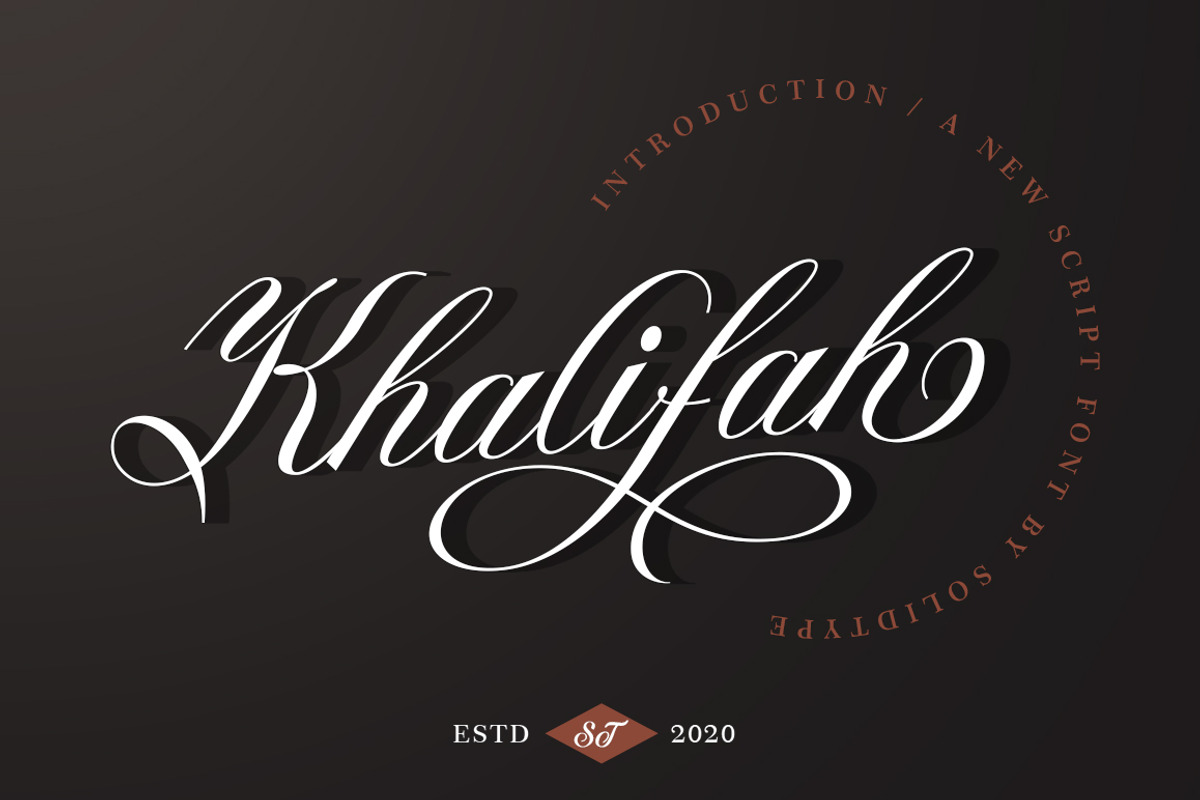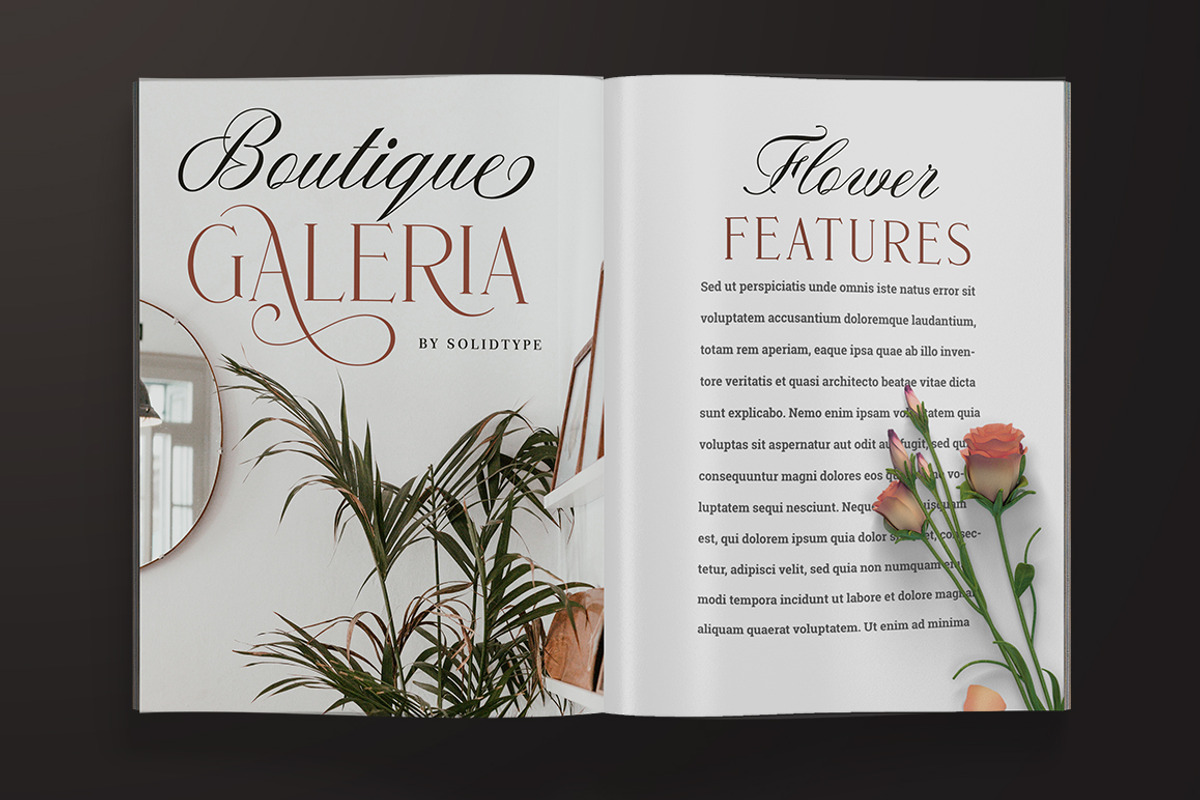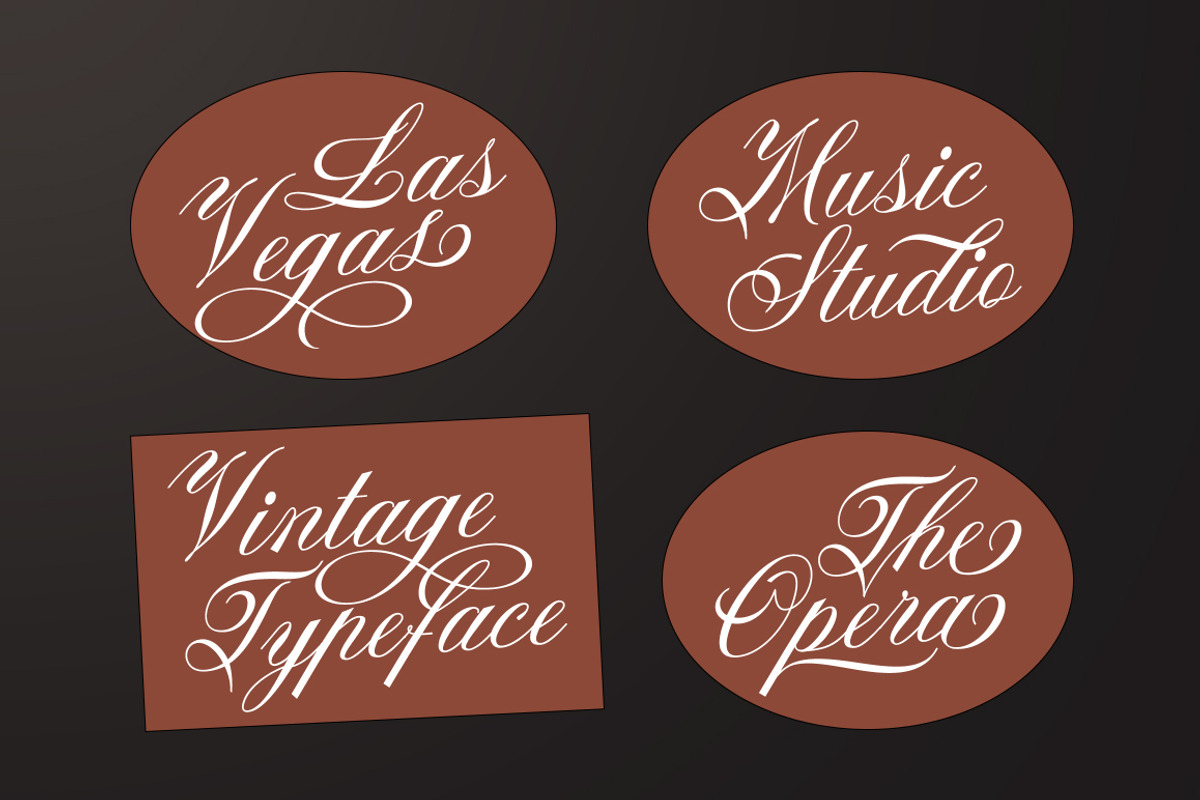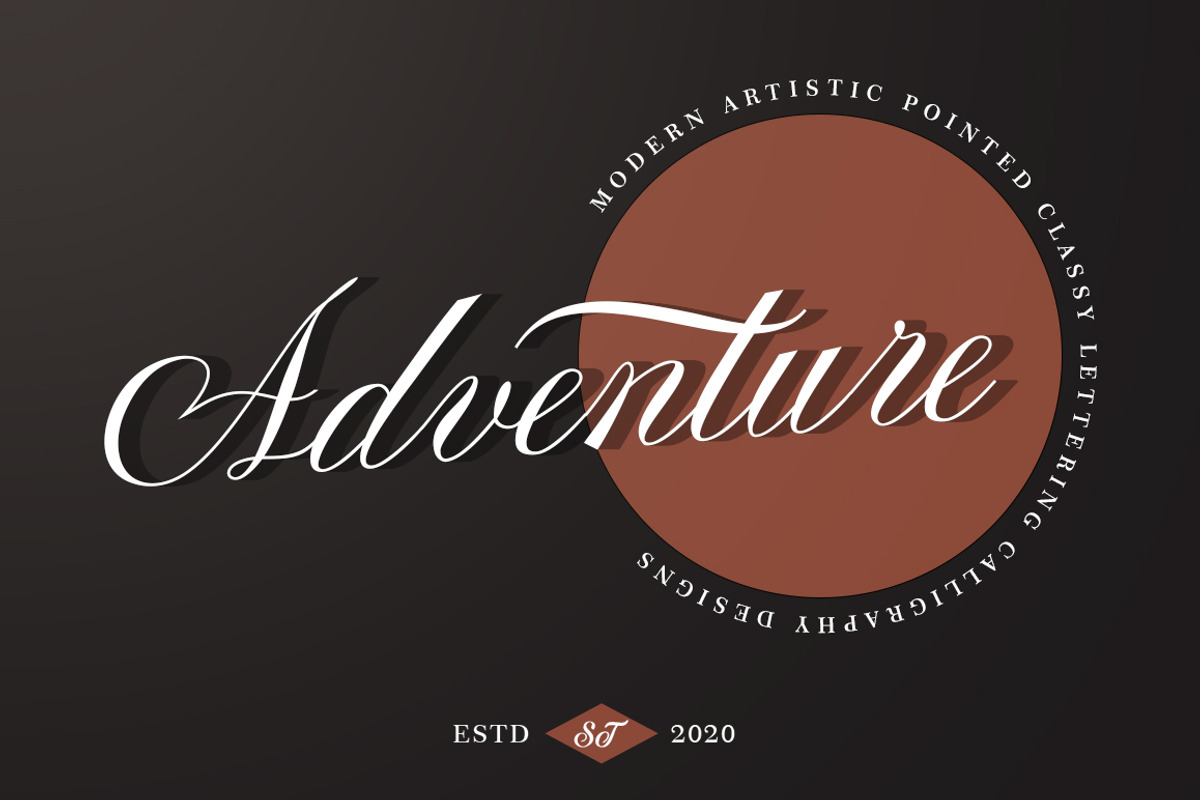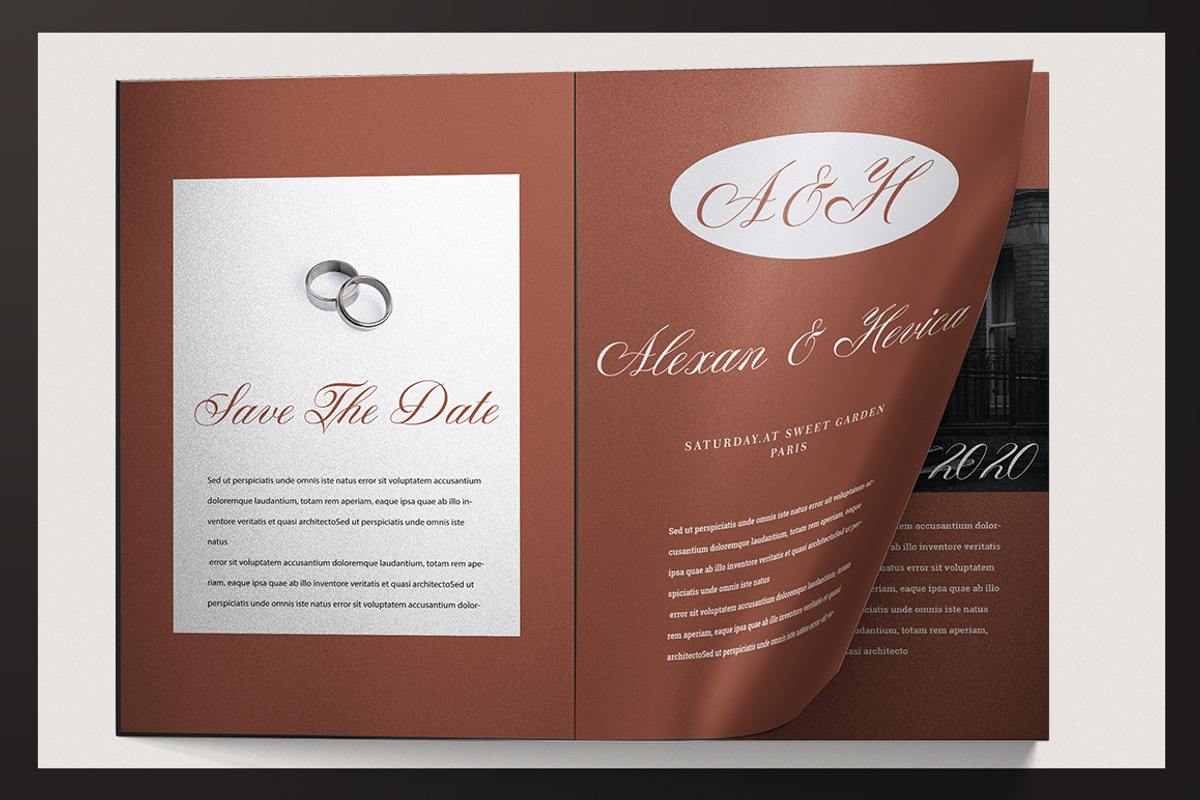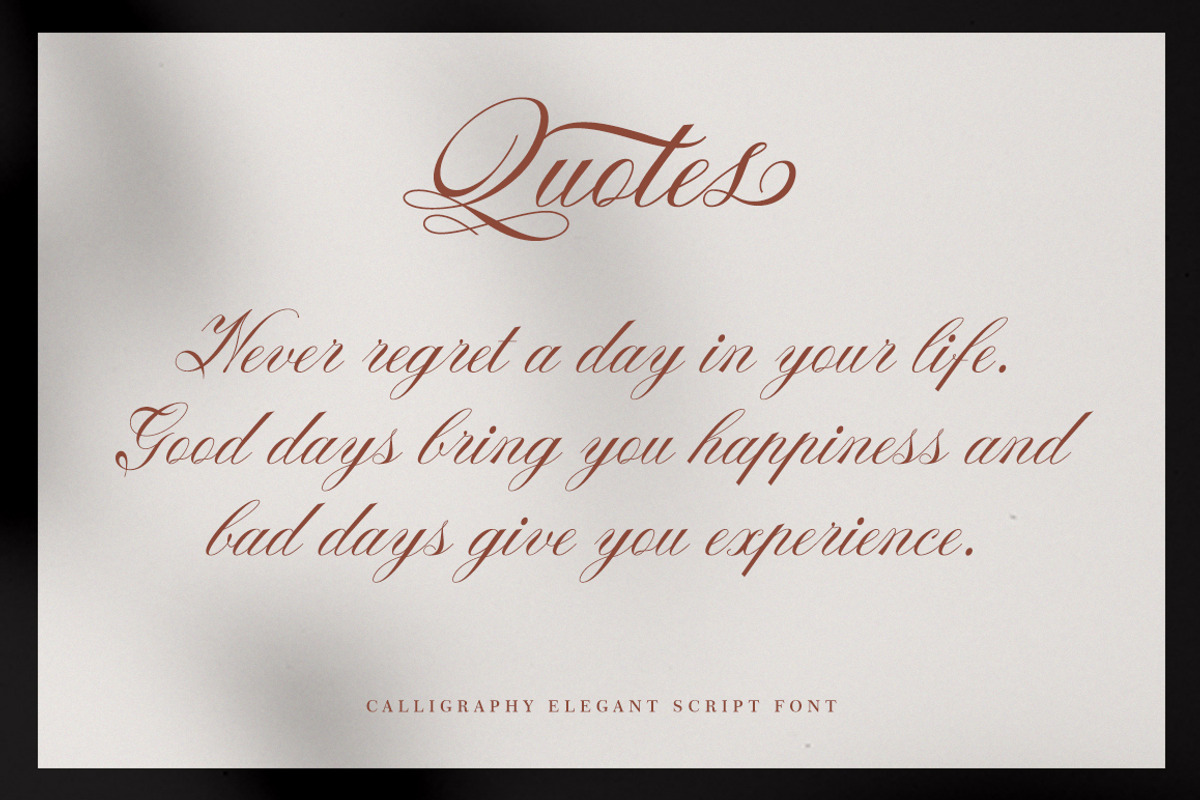
Khalifah Script
Khalifah Script is a calligraphy script font that comes with very beautiful changing characters, a kind of classic decorative copper script with a modern touch, designed with high detail to bring stylish elegance. Khalifah Script is attractive as a typeface that is smooth, clean, feminine, sensual, glamorous, simple and very easy to read, because there are many fancy letter connections. I also offer a number of viable style alternatives for many letters. The classic style is perfect to be applied in various formal forms such as invitations, labels, restaurant menus, logos, fashion, make up, stationery, novels, magazines, books, greeting / wedding cards, packaging, labels or any type of advertising purpose.